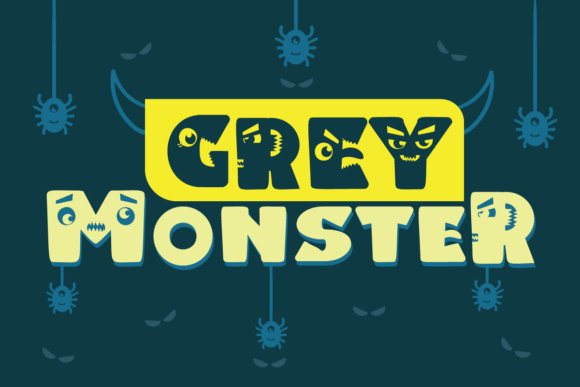
Introduction to Grey Monster Font
Grey Monster is a scary but fun display font.
All capitals feature scary faces, making it the perfect font for Halloween, scary camping trips, kids parties and more .
Key Features of Grey Monster Font